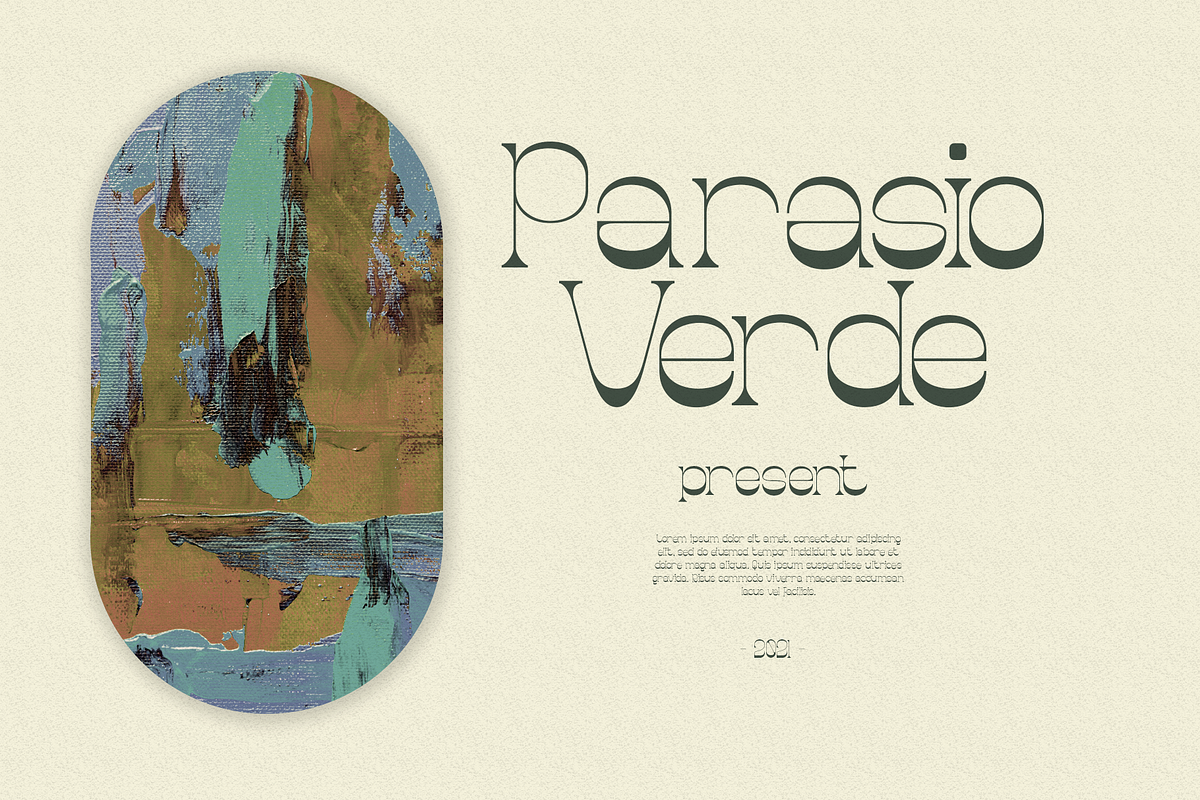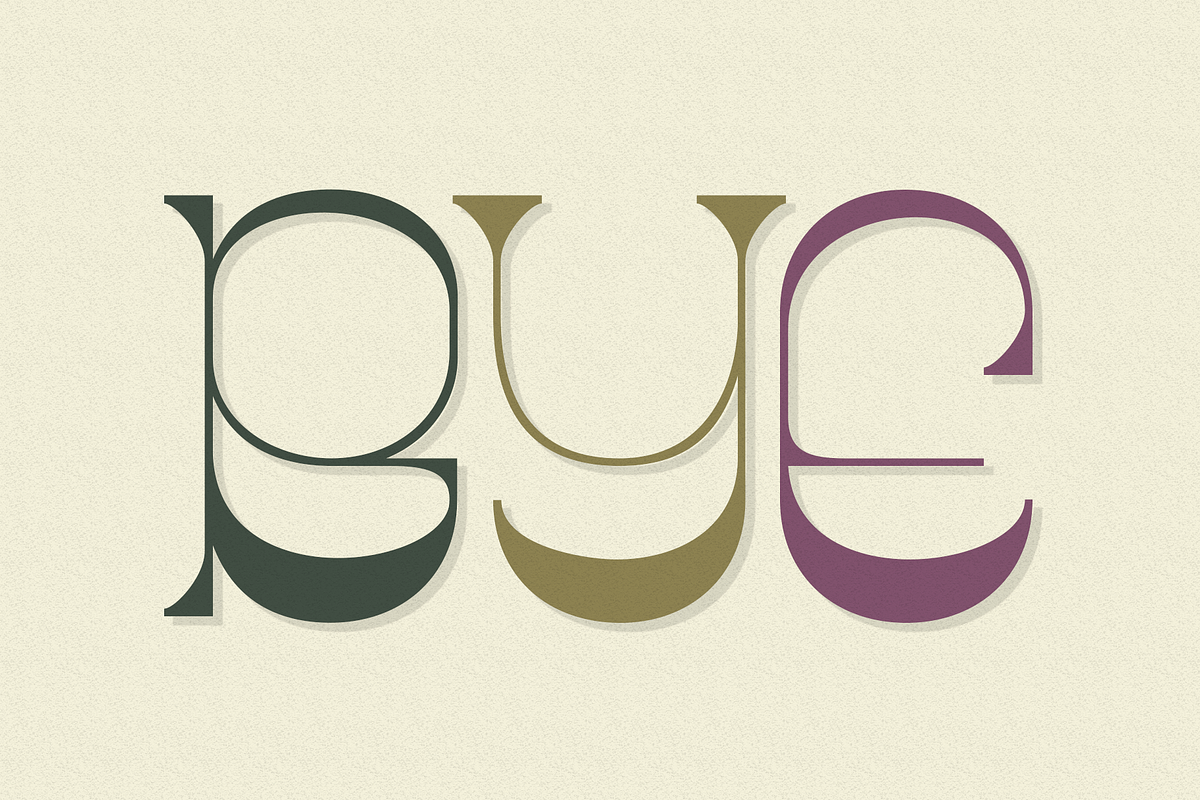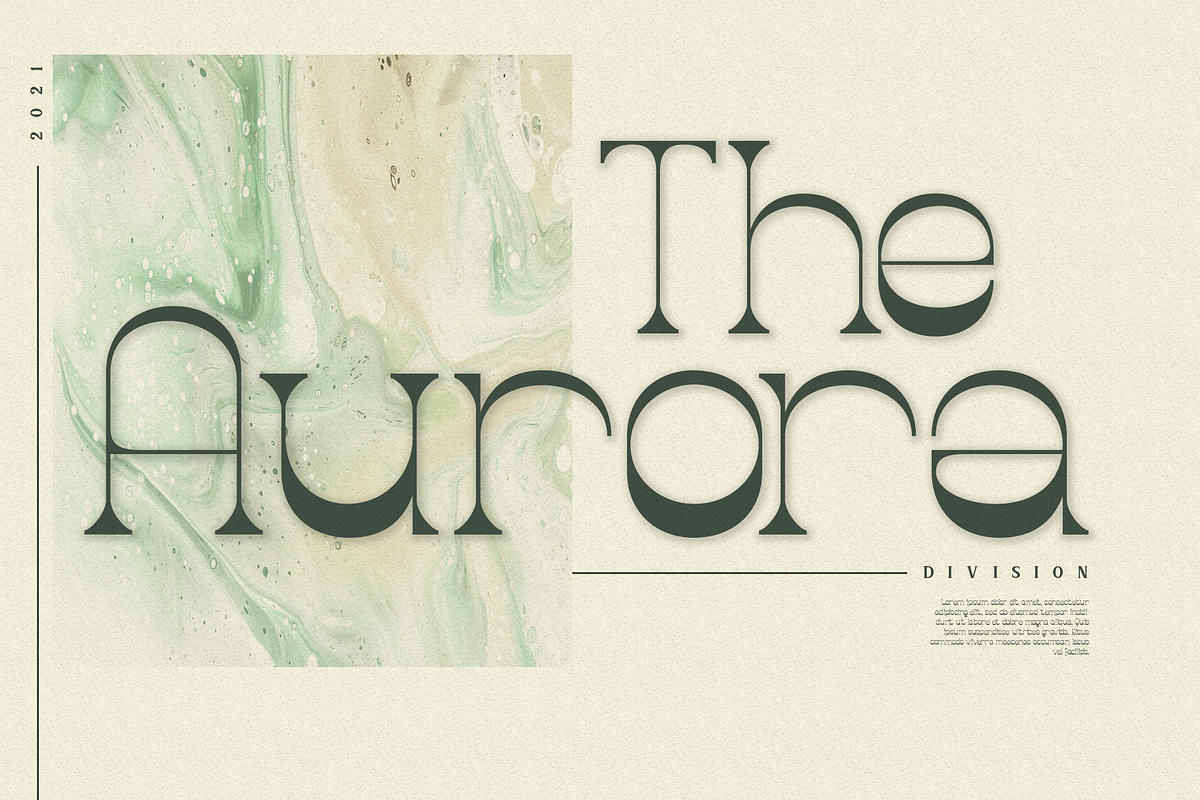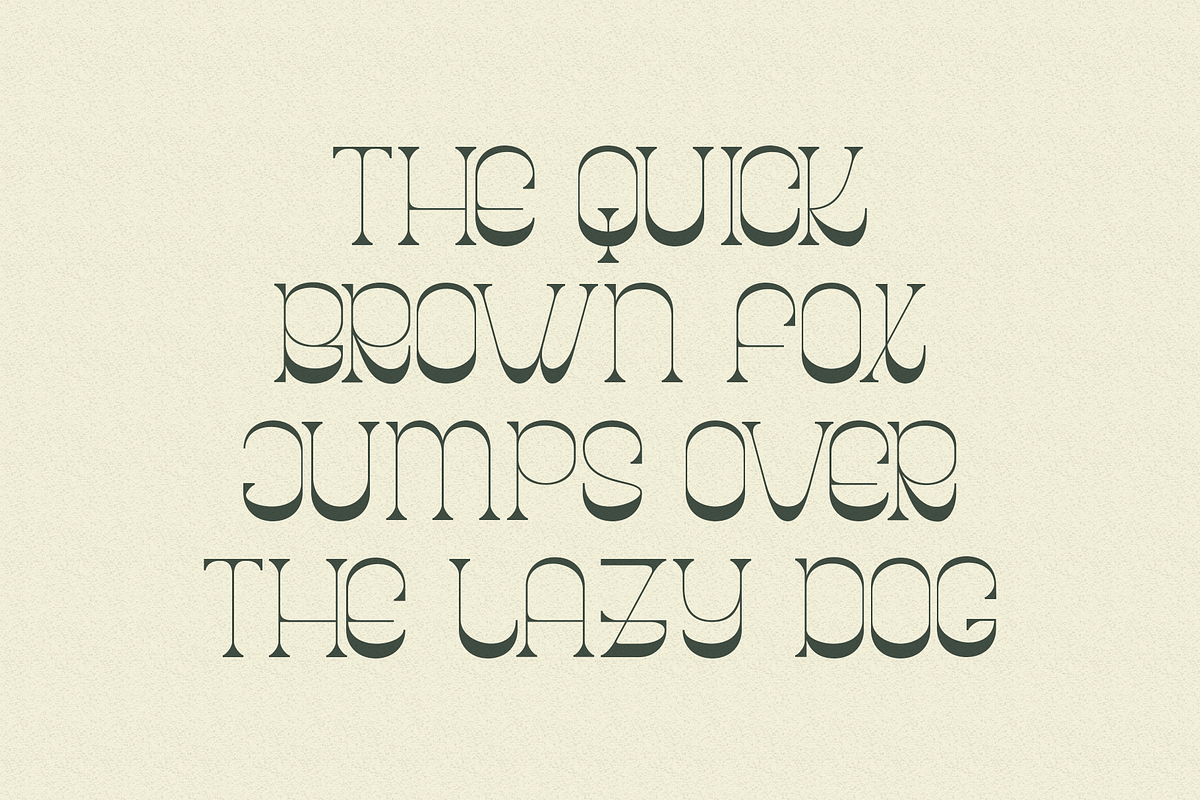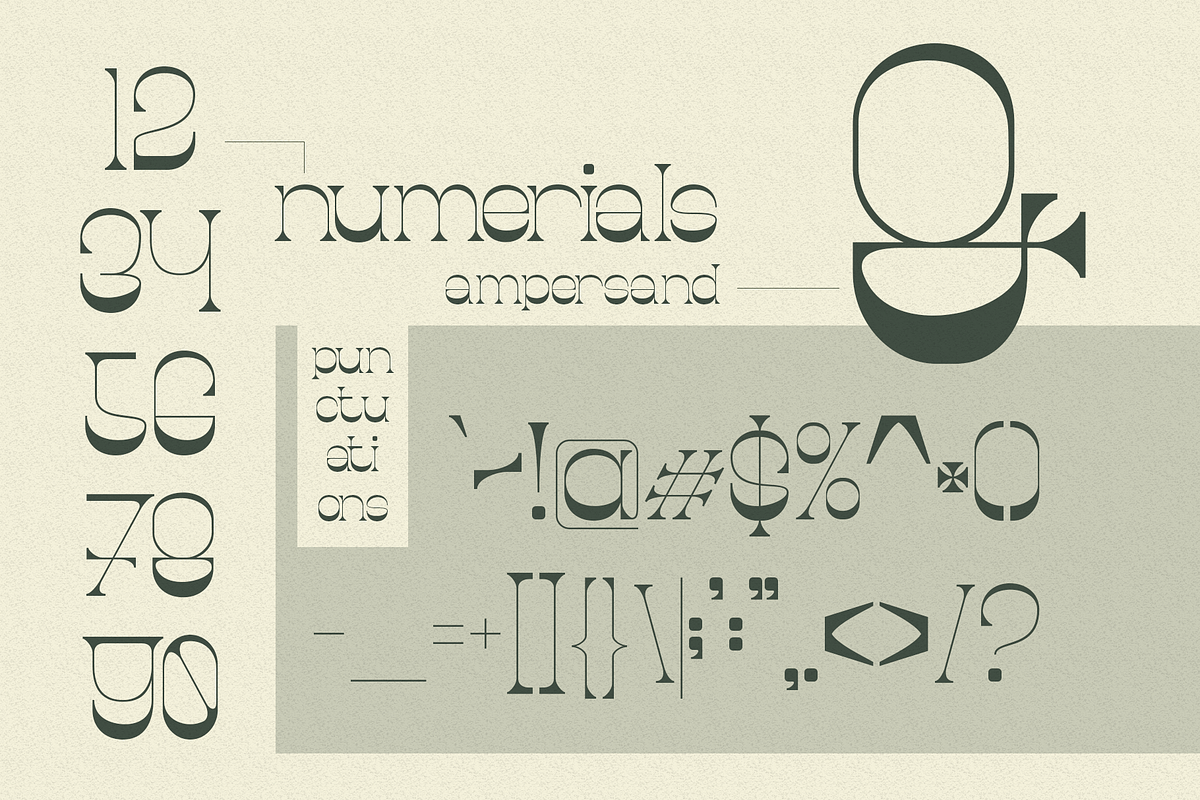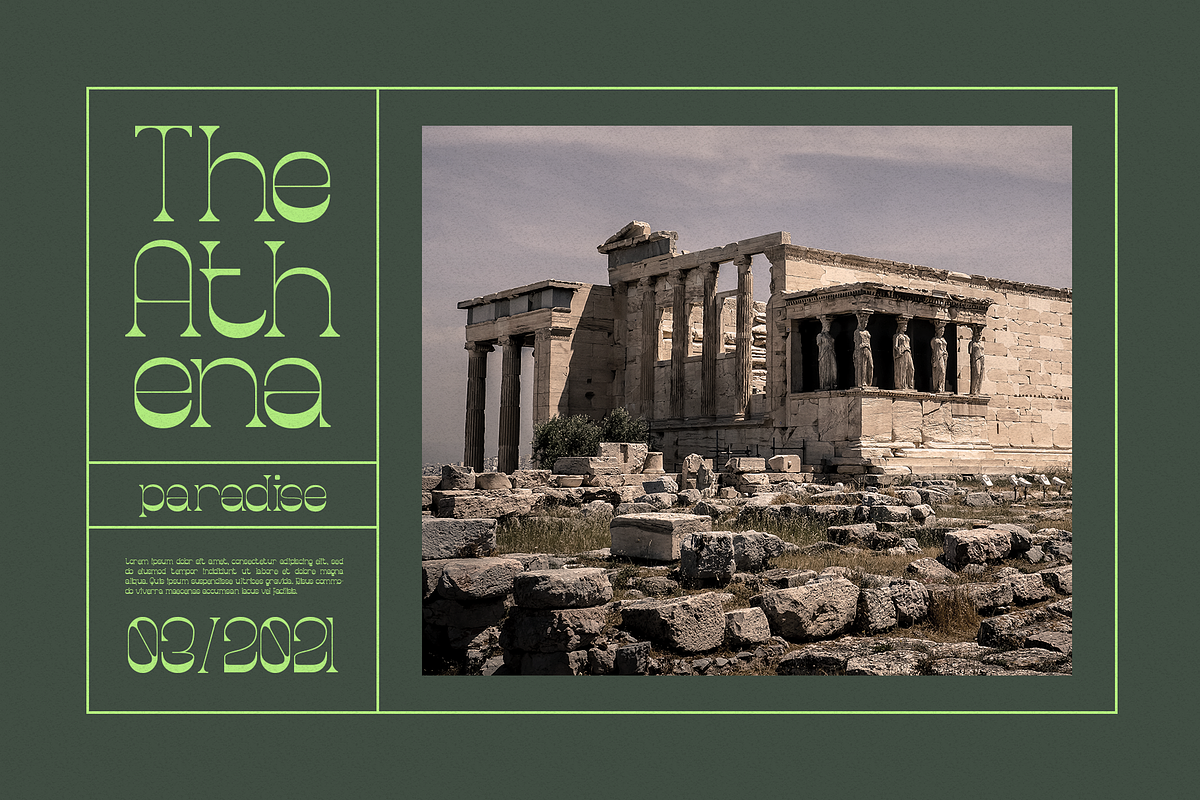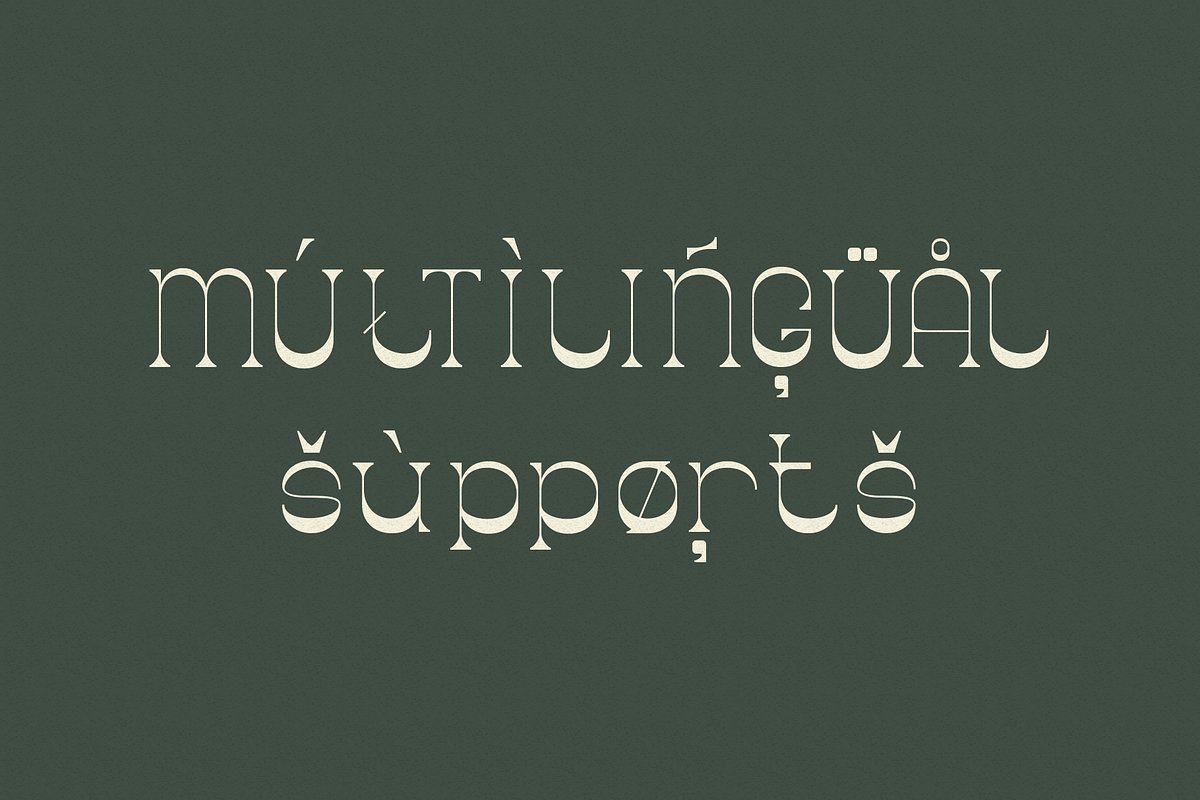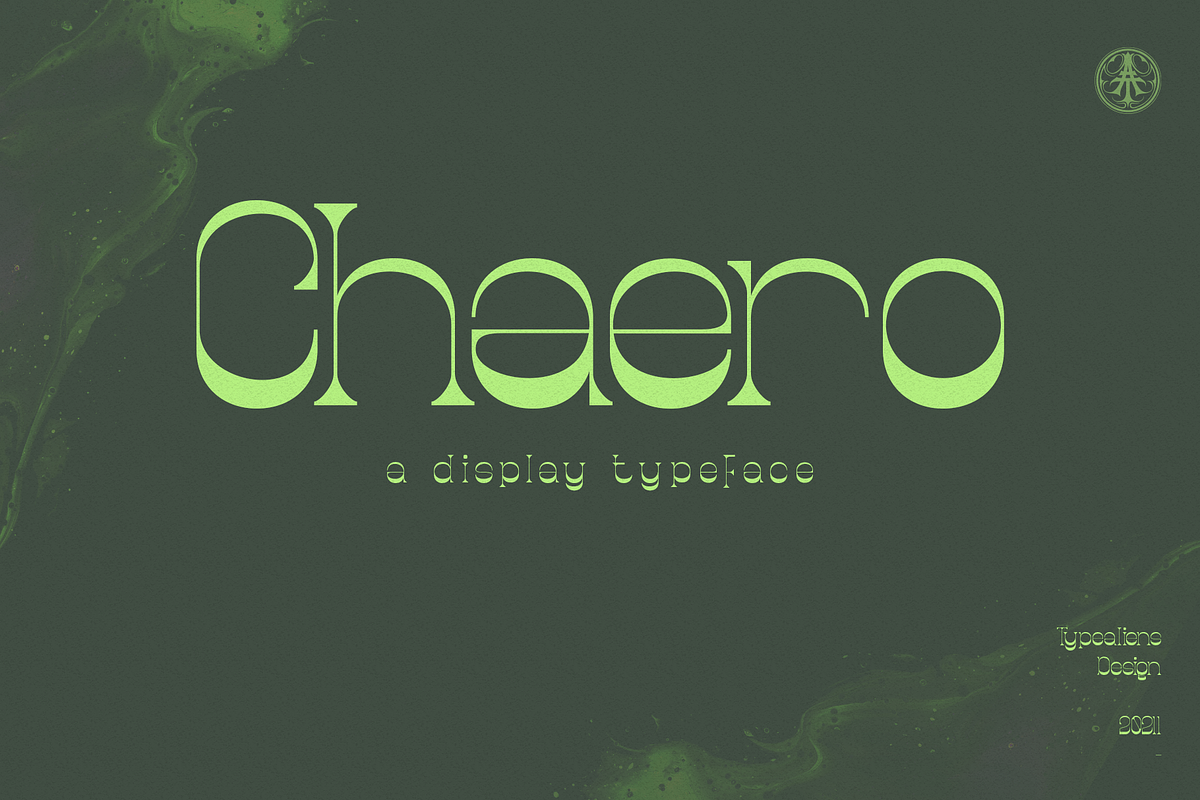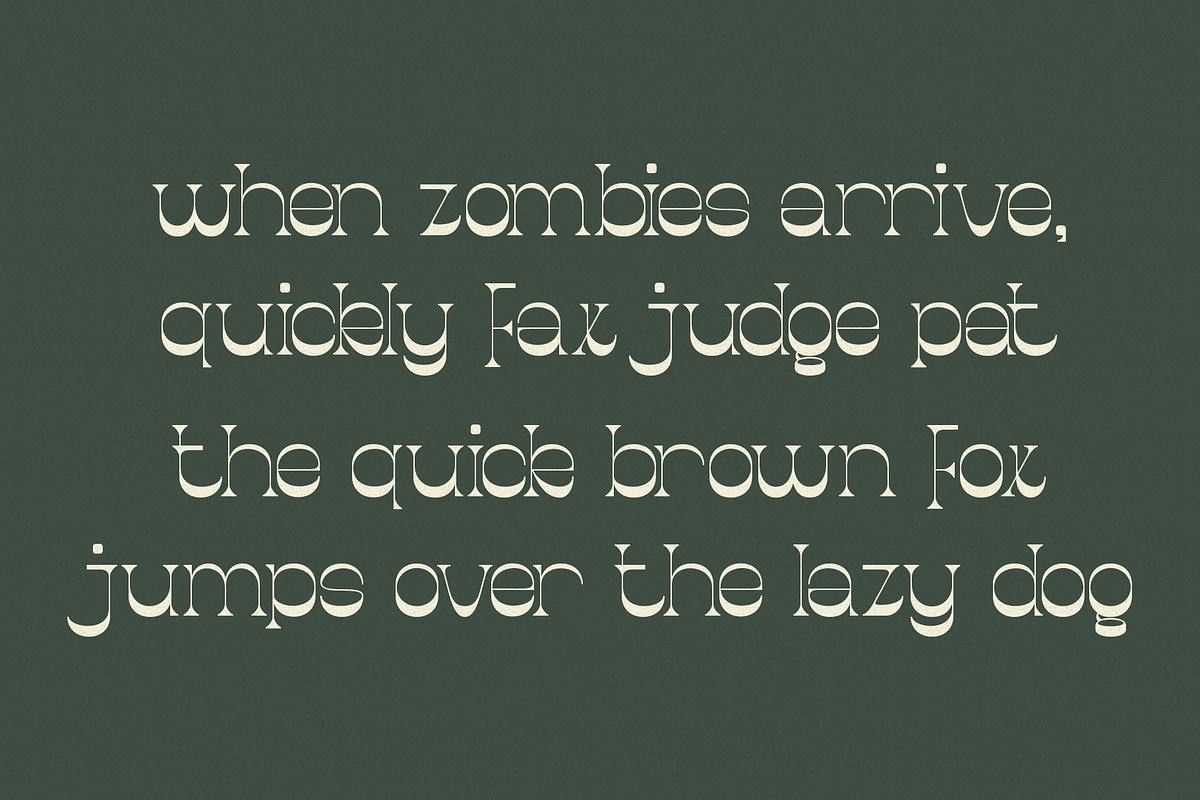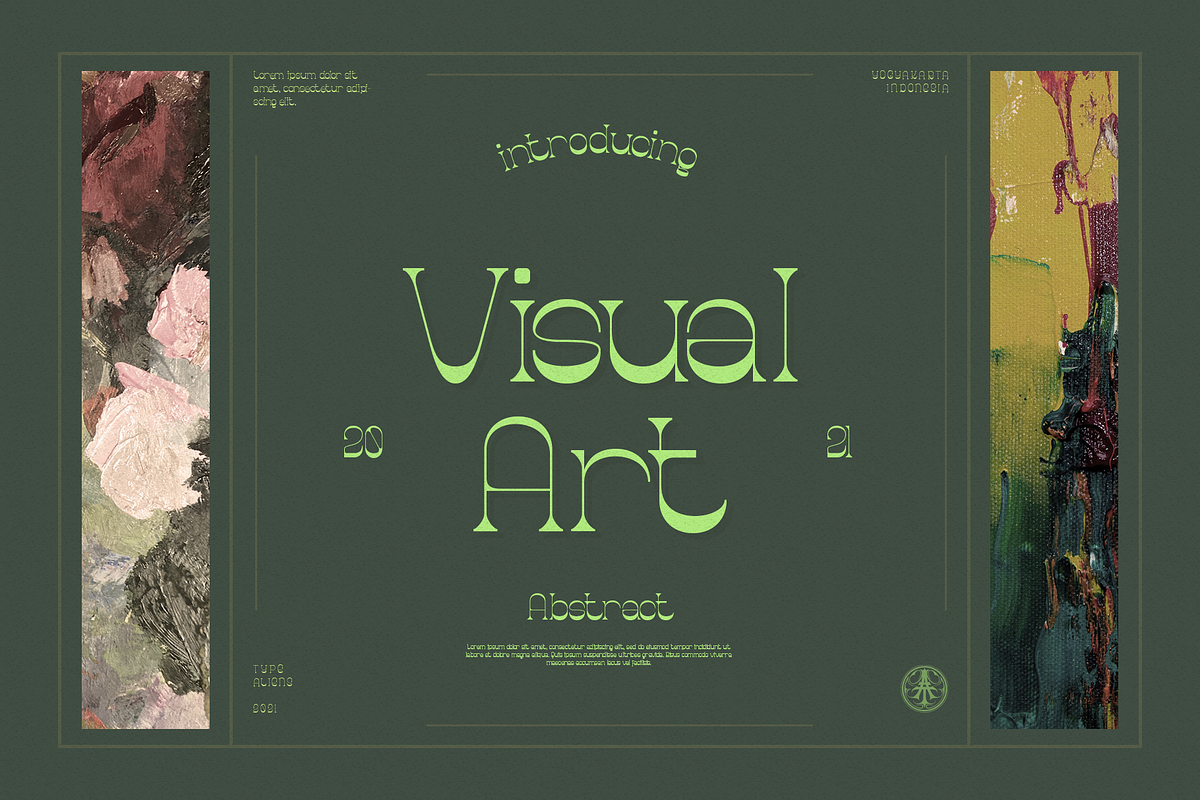
Chaero
CHAERO
Chaero is a display font that has a vintage style but is quite popular these days. Starting from a basic serif font with modern style modifications.
It would be perfect as a headline, magazine cover or poster title. It's also great for making logo badges and logotypes.